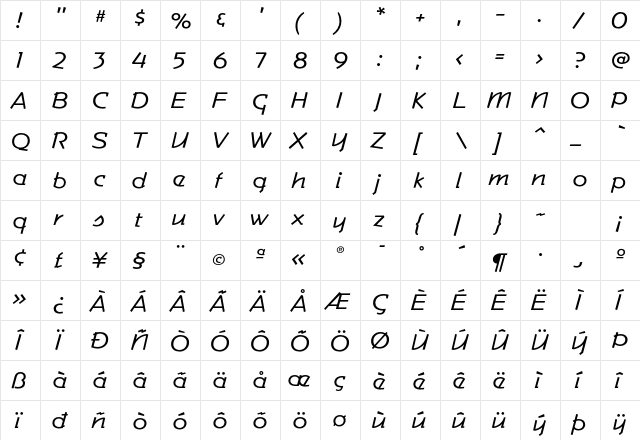
Commerce FB Lean Regular
| Foundry | Greg Thompson for The Font Bureau, Inc |
Design Context for Commerce FB Lean Typeface
Commerce FB Lean is a composed and adaptable typeface that performs quietly and consistently across a wide range of design contexts.
Pro Tip: Use Commerce FB Lean in both headline and body roles to test its range before committing to a single application.